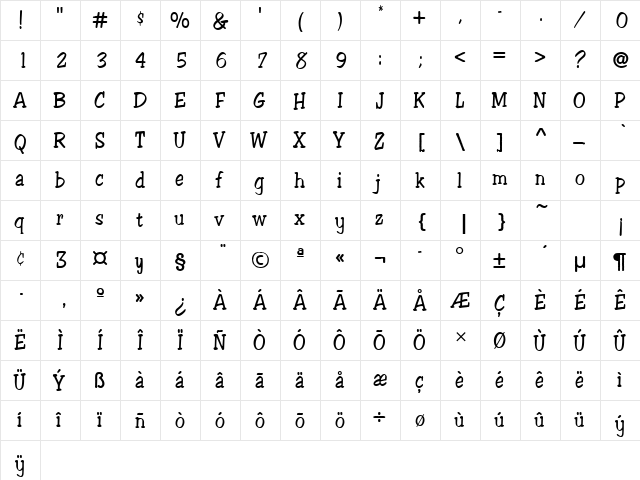
ApacheURWTReg Regular Font Preview
ApacheURWTReg Regular
ApacheURWTReg Regular Font Details
Design Context for ApacheURWTReg Typeface
ApacheURWTReg is a composed and adaptable typeface that performs quietly and consistently across a wide range of design contexts.